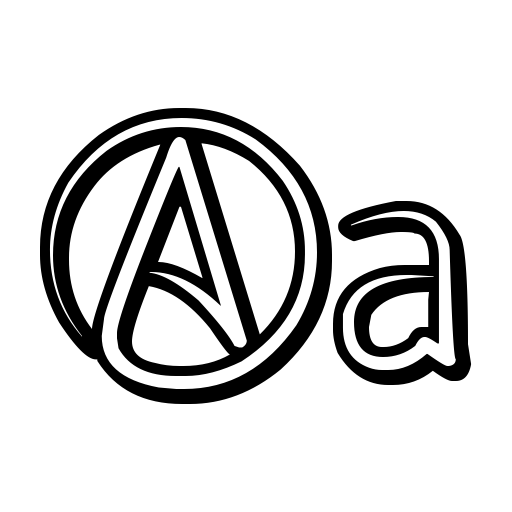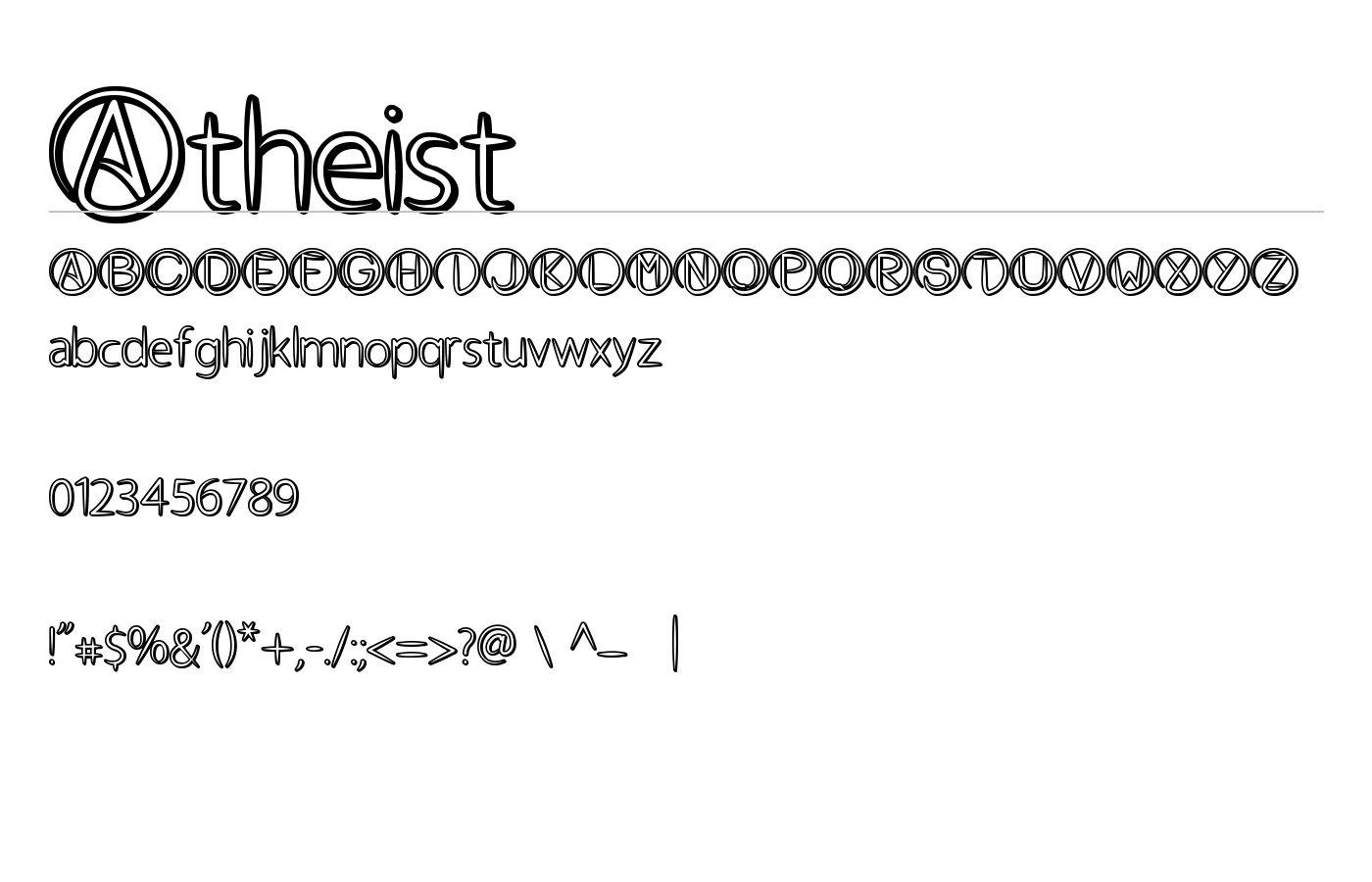
Atheist Font is a playful and modern sans serif typeface with thin, outlined strokes that give it a light and airy feel. Its quirky, slightly irregular letterforms and circular motifs in uppercase make it ideal for creative, informal designs, logos, or trendy packaging that seek to convey uniqueness and approachability. This font works best in headline or display use where its distinctive style can stand out without sacrificing legibility.
Atheist Font